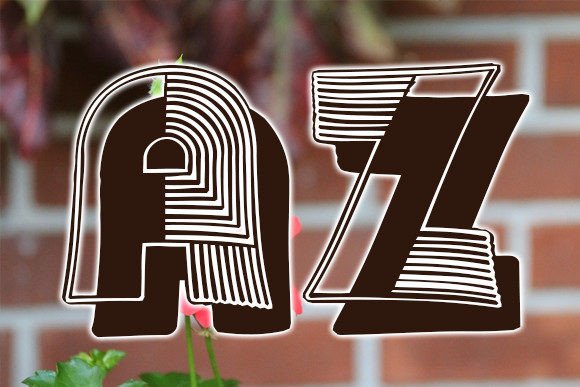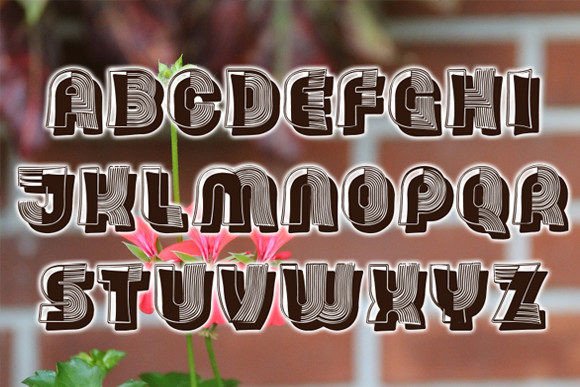
Introducing Company Font: Elevate Your Designs with a Shadowed Multiline 3D Effect
Are you tired of using the same old fonts in your designs? Look no further! Company Font is here to revolutionize the way you create. This stunning shadowed multiline 3D font is perfect for adding a touch of sophistication and style to any project. Whether you’re a designer, crafty DIY enthusiast, or simply someone who loves to create, Company Font is the perfect addition to your toolkit.
What is Company Font?
Company Font is a unique and versatile font that boasts a striking shadowed multiline 3D effect. Its sleek and modern design makes it perfect for a wide range of applications, from posters and flyers to t-shirts and other merchandise. The font’s bold and eye-catching style is sure to grab attention and leave a lasting impression.
Key Features of Company Font
- Shadowed Multiline 3D Effect: The font’s distinctive shadowed multiline 3D effect gives it a raised, dimensional appearance that’s sure to make your designs stand out.
- Highly Versatile: Company Font can be used on a wide range of materials, from paper and cardstock to fabric and other textiles.
- Scalable: Company Font can be scaled up or down without losing any of its clarity or impact, making it perfect for use on everything from small t-shirts to large billboards.
Ideas for Using Company Font
Company Font is incredibly versatile, and can be used in a wide range of creative projects. Here are just a few ideas to get you started:
- Posters and Flyers: Use Company Font to create eye-catching posters and flyers that are sure to grab attention.
- T-Shirts and Merchandise: Add a professional touch to your t-shirts and other merchandise with Company Font.
- Signs and Banners: Company Font is perfect for use on signs and banners, where its bold and eye-catching style can really make an impact.
- Packaging and Branding: Use Company Font to add a touch of sophistication and style to your packaging and branding materials.
Tips for Getting the Most out of Company Font
To really make the most of Company Font, here are a few tips to keep in mind:
- Experiment with Colors: Company Font looks great in a wide range of colors, so don’t be afraid to experiment and find the perfect shade to match your brand or design.
- Play with Sizes: The font’s scalability makes it perfect for use on everything from small labels to large billboards.
- Combine with Other Fonts: Company Font pairs well with a wide range of other fonts, so feel free to get creative and combine it with other styles to create a unique look.
Company Font is a game-changing addition to any designer’s or crafter’s toolkit. Its unique shadowed multiline 3D effect and versatility make it perfect for a wide range of creative projects. Whether you’re looking to create eye-catching posters and flyers, or add a professional touch to your t-shirts and merchandise, Company Font is the perfect choice. So why wait? Download Company Font today and start taking your designs to the next level!